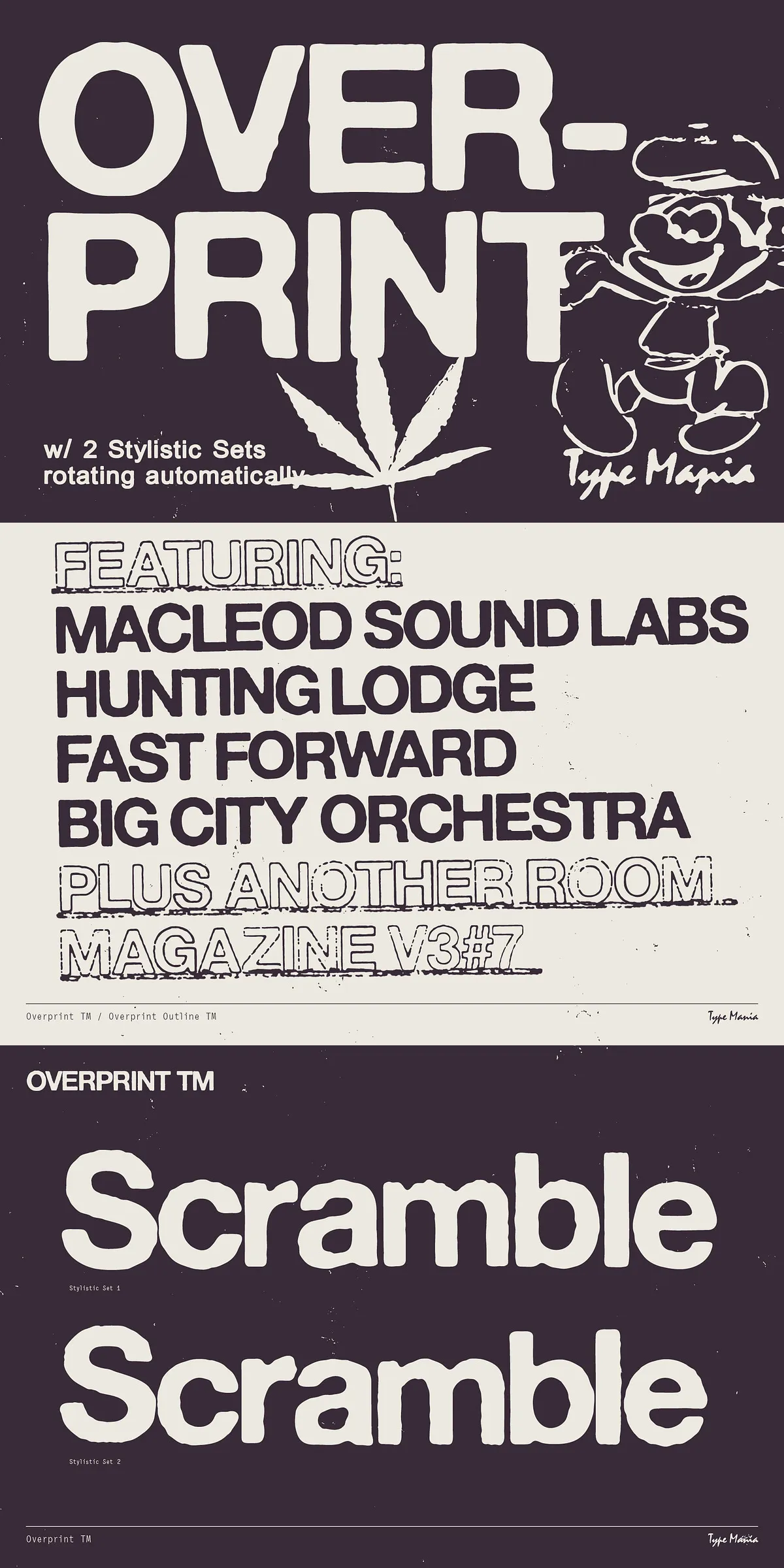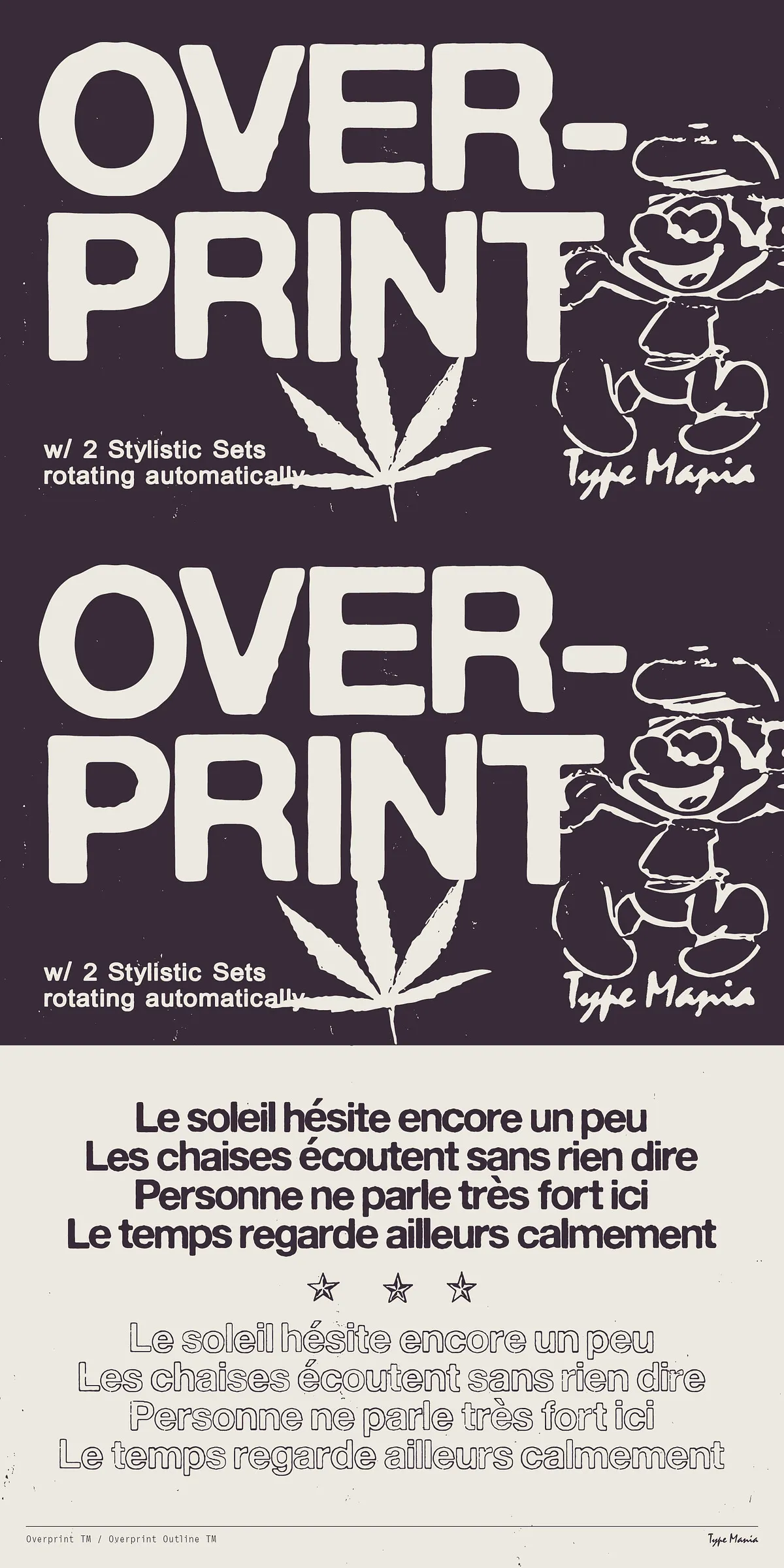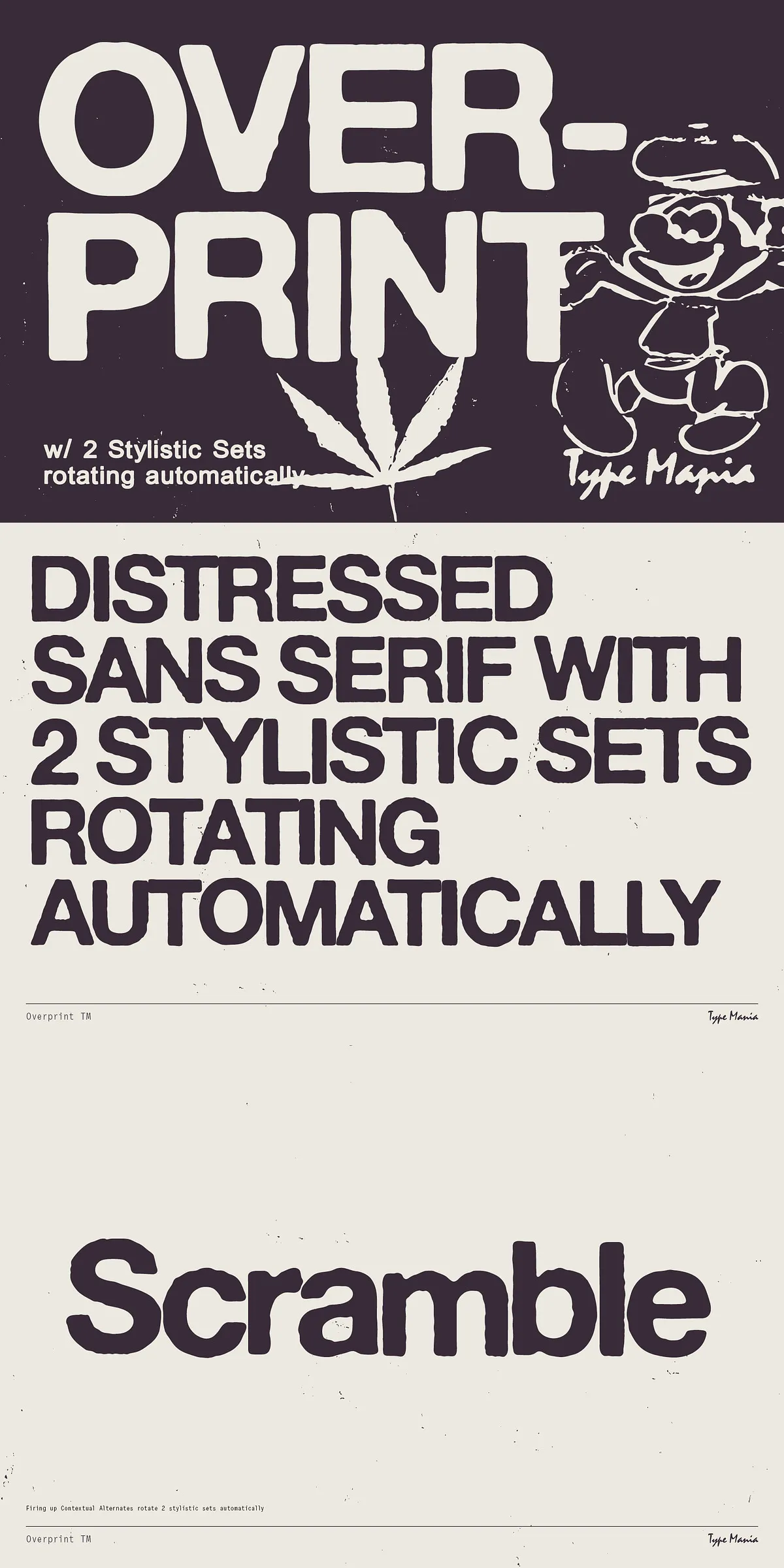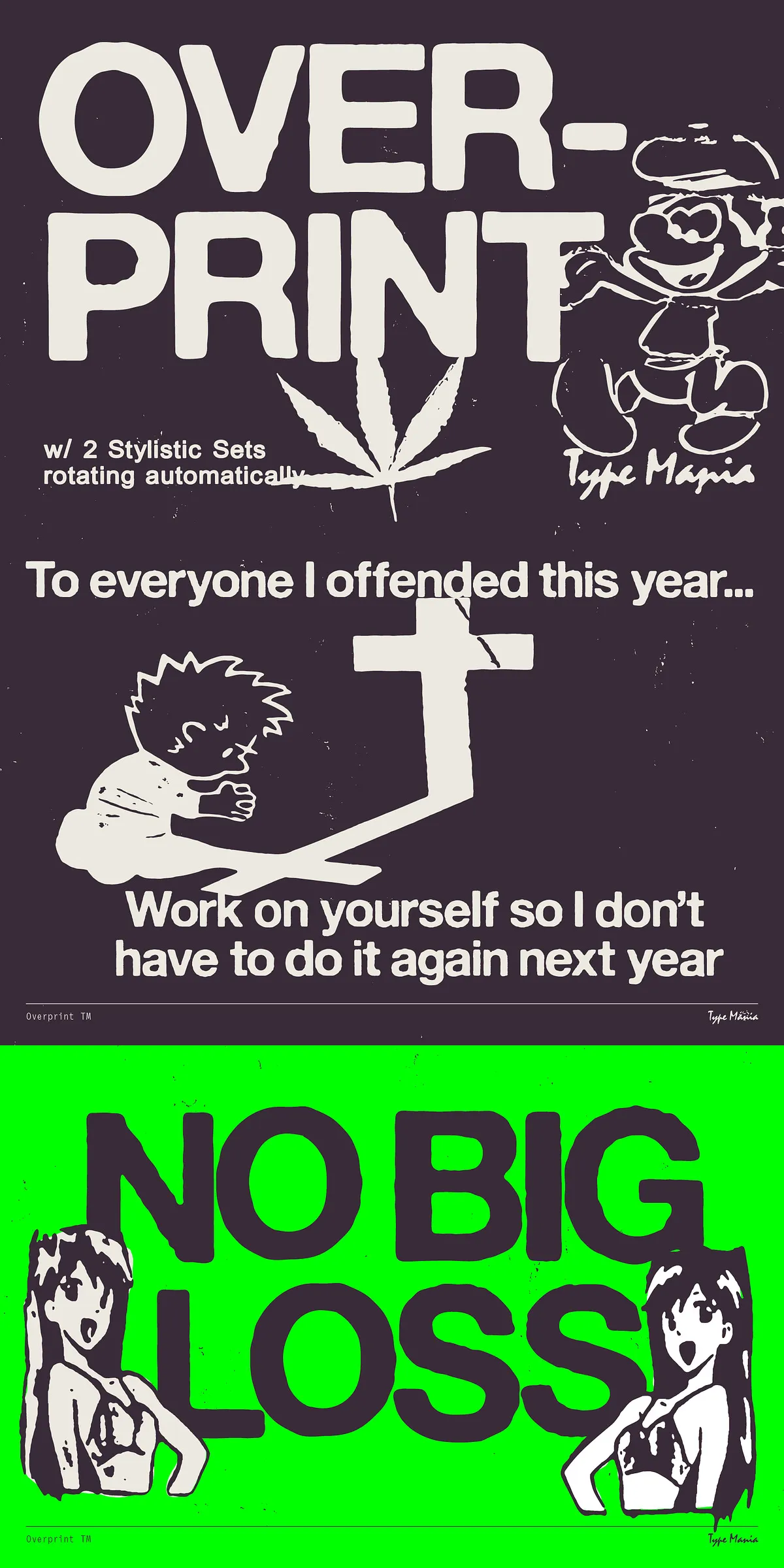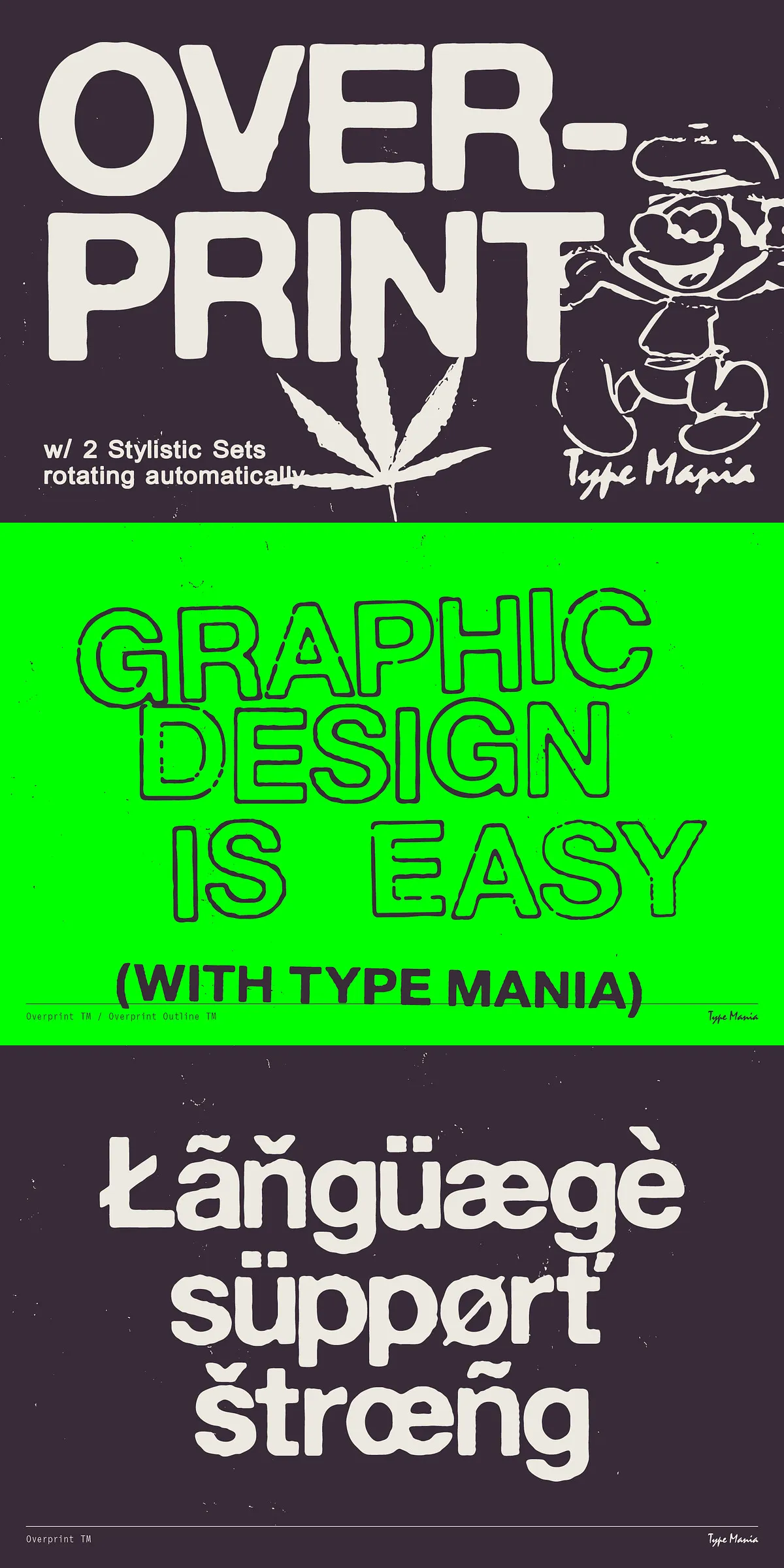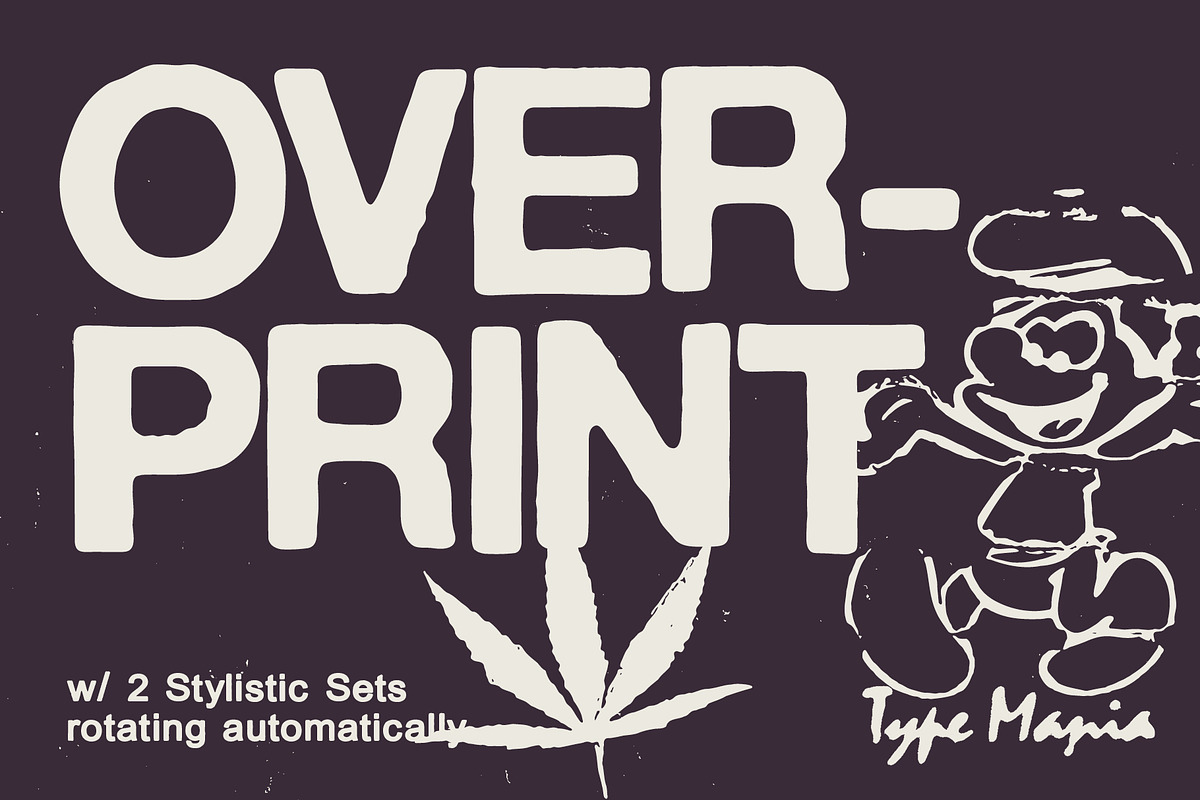
Overprint TM – Distressed Sans Serif
Overprint TM captures the raw energy of photocopied, weathered print with intentionally uneven edges and a xeroxed finish that reads as authentic and tactile. This display typeface actively communicates vintage character and rugged personality, making it ideal for posters, packaging, editorial spreads, album art, and identity systems that require a loud, lived-in voice. Designers will find that Overprint TM brings immediate texture and attitude to headlines, logotypes, and short-form copy where character matters more than sterile precision.
How The Typeface Achieves A Realistic Distressed Look
Overprint TM uses two stylistic sets that supply subtle, complementary imperfections across repeated letters and words. With contextual alternates enabled, the font automatically shifts between these stylistic sets to avoid mechanical repetition and to recreate the irregularities of hand-feeding paper through old photocopiers. The automated alternation preserves rhythm and contrast across letter combinations so text reads naturally while maintaining a handcrafted, xeroxed aesthetic. This programming lets designers focus on layout while the font supplies organic variation behind the scenes.
Practical Usage Guidance For Effective Results
Use Overprint TM at display sizes for maximum impact—headlines, cover art, and signage benefit most from the textural detail. Pair the font with a clean, modern sans-serif for supporting copy to maintain overall legibility. When composing longer blocks of text, reserve Overprint TM for pull quotes or callouts to preserve readability. For print production, test small proofs on textured papers and recycled stocks to amplify the xeroxed effect; for web use, apply image-based effects sparingly to avoid muddying the glyph details.
OpenType Features And Automated Behavior Explained
Overprint TM ships with two stylistic sets and contextual alternates that work together to inject controlled randomness into text. The font is programmed to switch automatically between stylistic sets when contextual alternates are active, so repeated letters and recurring words avoid exact duplication. This behavior reproduces the non-uniform ink distribution and micro-imperfections typical of analog reproduction methods, while keeping the workflow simple for designers.
Why Choose Overprint TM For Your Next Creative Project
Overprint TM actively supplies authentic, analog texture without forcing manual alternation workflows. Its automatic stylistic switching and contextual alternates free designers to experiment with layout while retaining organic variation. Choose Overprint TM when you want bold, vintage character that reads handcrafted and lived-in—perfect for cultural branding, limited-edition packaging, posters, and editorial covers that demand visual attitude and distinctiveness.